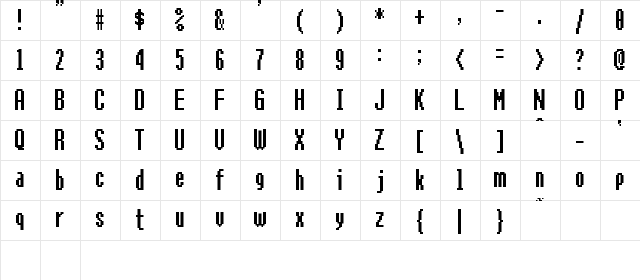
Shoplifter ABitA16 Regular
Design Context for Shoplifter ABitA16 Typeface
Shoplifter ABitA16 offers clean, dependable letterforms without strong stylistic allegiance, making it a practical choice for designers who need flexibility.